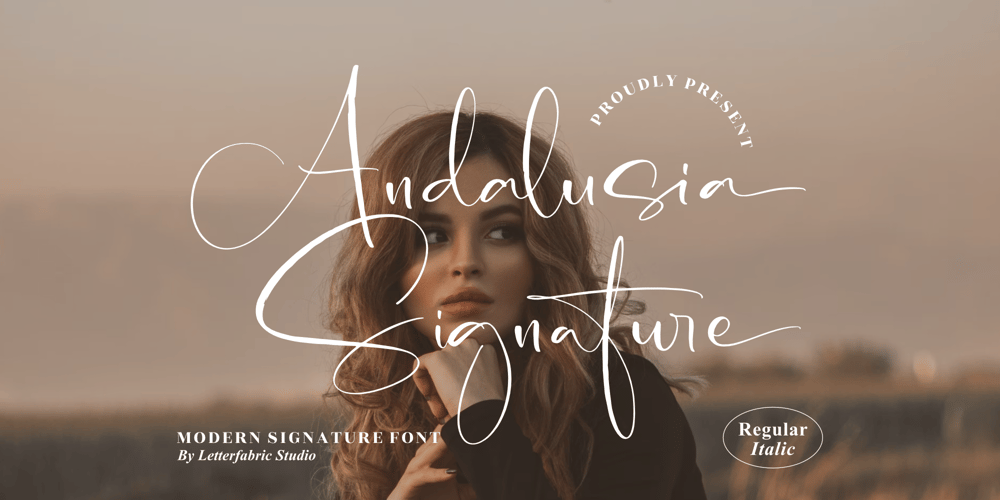
Andalusia Signature Font Family was designed by Heru Utama Putra and published by Letterena Studios. Andalusia Signature contains 2 styles and family package options. Andalusia Signature is an exquisite handwritten font, masterfully designed to become a true favorite. It maintains its classy calligraphic influences while feeling contemporary and fresh. This font is PUA encoded which means you can access all of the glyphs and swashes with ease!